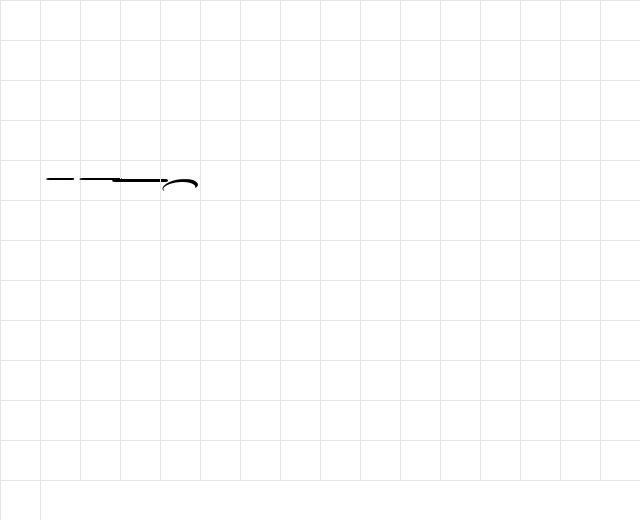
Mas Karebet Swash flows with the natural rhythm of handwritten lettering, making it ideal for designs that call for warmth and personal expression.
Font Pairing: Combine Mas Karebet Swash with a simple geometric sans for maximum contrast - the tension between flowing curves and clean structure is a classic typographic pairing.
Pro Tip: Use Mas Karebet Swash for short runs of text - names, titles, or taglines. Extended body copy in script faces tires the eye quickly.